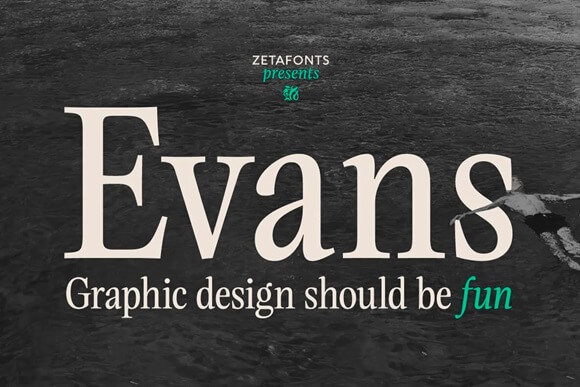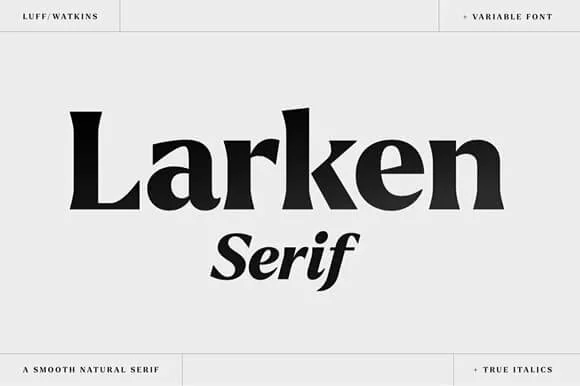
20 Best Serif Fonts of 2024: Most Popular Picks
Serif fonts are a great asset for brands and design projects that have a timeless and classic feel. As a graphic designer, web designer, or logo/brand identity designer, you should have a few high-quality serif fonts in your collection.
This guide will provide you with a list of the best serif fonts and expert tips for choosing the right font for your project. We’ll also answer some of the most common questions people have about using serif fonts in their work.
Best Serif Fonts
How to Choose the Perfect Serif Font?
There are a few important factors to consider when choosing the perfect serif font for your project. Read about them below to ensure you choose a well-suited font for your design.
1. Consider your projectโ€™s style: Serif fonts are best for projects that have a sophisticated style. If your brand has a serious personality, a serif font is likely suitable for your design. From there, consider the different styles of serif typefaces. For example, if your brand is modern, use a contemporary font, like Silver South.
2. Focus on readability: Ensure your font is readable by considering how it will look on your design. A font’s height, shape, and spacing affect its reading ability. Choose a proportionate font with high contrast against the background. This ensures your audience can easily see and understand the text.
3. Evaluate suitability for medium: You should also consider how a font will look on the specific type of medium you’re using. Some serif fonts, like DT Augustina Slab, are better suited for screens, while others, like Evans, are better suited for long-form print. Use the categories on each font in this list to find fonts suitable for your medium.
4. Think about visual hierarchy: Visual hierarchy is how designers visually organize text in a design. When choosing your fonts, consider what title, headings, or subheadings you’ll use. You should also consider if your project requires long bodies of text. Use typefaces from the same font family for each level of your design’s visual hierarchy. This will keep your entire project cohesive.
As designers ourselves, we know a great font when we see one. We created this list based on fonts we (and other designers) love. Their popularity, readability, and unique style are what make them top choices. Keep reading to discover your favorites and find the perfect font for your next project.
1. Recoleta
Best Serif Font Overall
The top pick on our list is Recoleta. This font is inspired by popular serif typefaces from the 70s. It will give your graphic designs a classic look.
The Recoleta font family consists of 14 fonts that range in weight from thin to black. We chose this as the best font because it’s suitable for a wide range of projects. Save it for all your print and digital designs that need a timeless serif font.
2. DT Augustina Slab
Best Serif Font for Websites
If you’re a website designer needing a serif font suitable for screen displays, DT Augustina Slab is the best font option. This elegant serif font comes in a total of 98 styles. This includes seven weights and widths.
With so many styles included, you’ll have every type of font you may need for your website. There’s a style for everything, from heavy text headers to headings. There are also styles for subheadings and even text highlights.
3. La Luxes Font Duo
Best Serif Font for Logos
La Luxes is an excellent choice for logo designers. It’s also great for business owners designing their own logos. We love this font because it comes with a perfect font pairing. It includes a stylish and modern serif and a beautiful script.
Additionally, the download also comes with editable logo templates. Use these to spark inspiration for your unique logo design.
4. Quincy CF
Best Serif Font for Body Text
Quincy CF is our top choice for body text. The serifs on each letter have a combination of rounded and sharp edges, giving the entire font a unique and modern look.
Apart from giving your text an appealing visual style, Quincy CF will also ensure it’s easy to read. Use it on all projects with long-form text like essays, digital eBooks, and blog articles.
For serif fonts that come as a pre-made pairing, use La Roche, Creative Vintage, or Silver South.